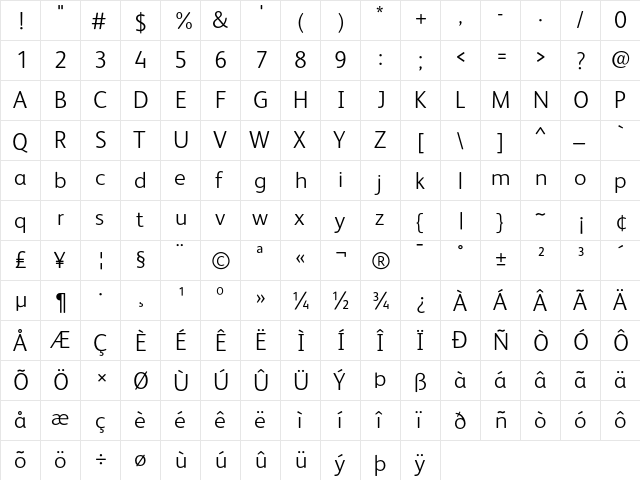
FSAlbert Light
Design Context for FSAlbert Typeface
FSAlbert takes a measured approach to typography — its balanced proportions and neutral character make it a reliable workhorse for both digital and print work. Its slender proportions lend an understated elegance to any composition.
Pro Tip: Pair FSAlbert with a font of contrasting weight or personality to build a more expressive typographic hierarchy.